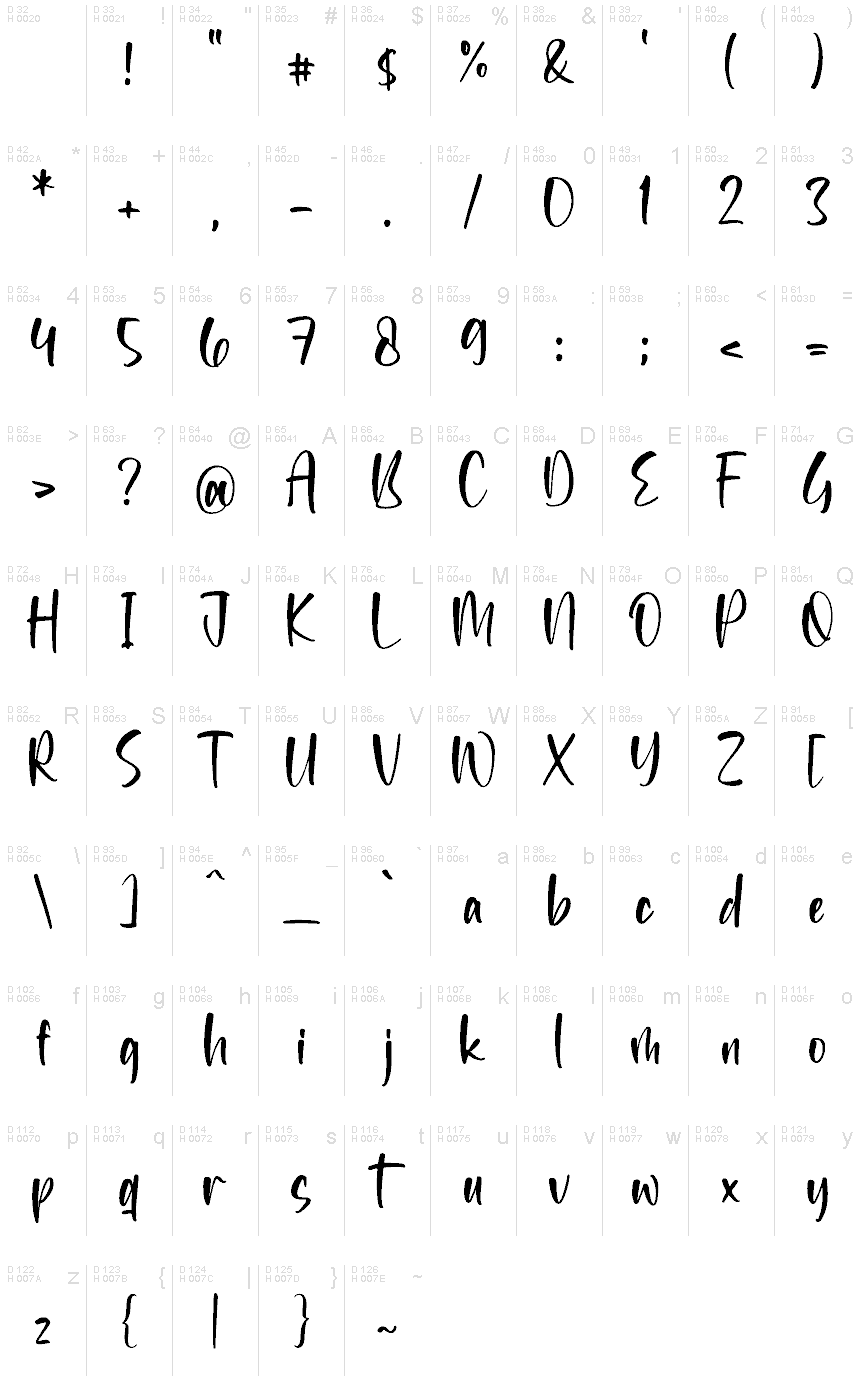
Weslingtone
Weslingtone font by Perspectype Studio - Letterena.com is a handwritten script with the artistic expressivity that usually comes natural to all brush fonts. The font combines calligraphic strokes and modern influences, picking the best of both styles. So its letters prioritize elegance and creative flair, while each line of text offers smooth flow for a natural look.